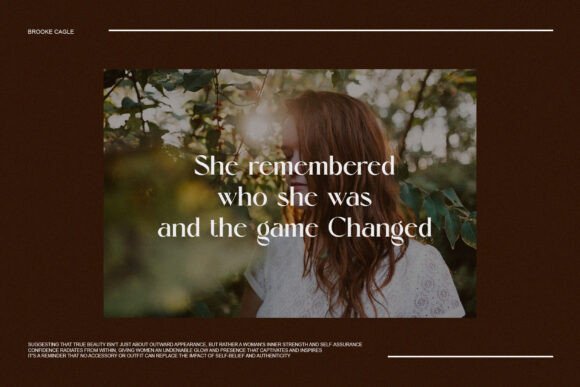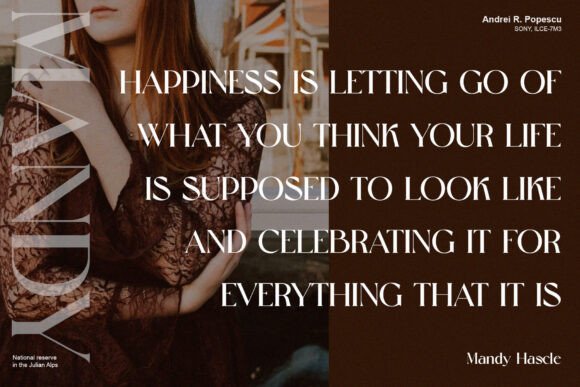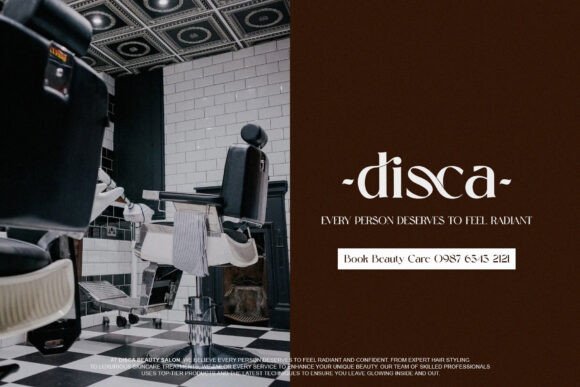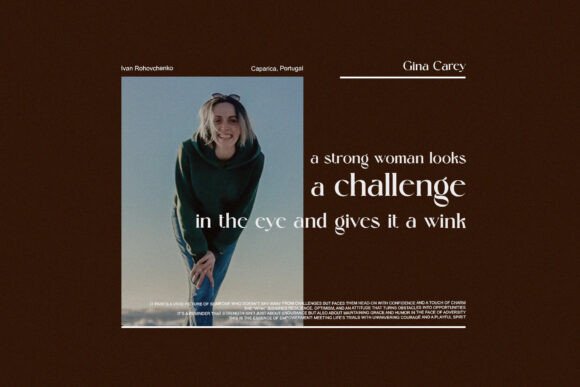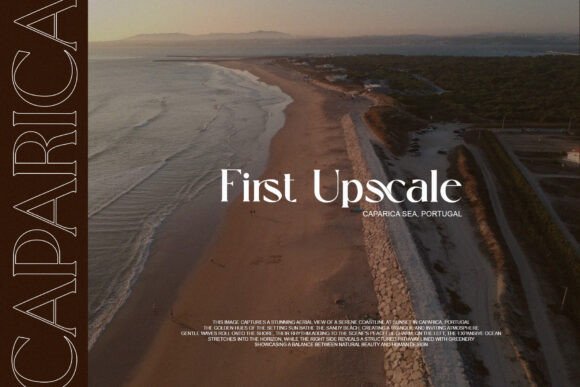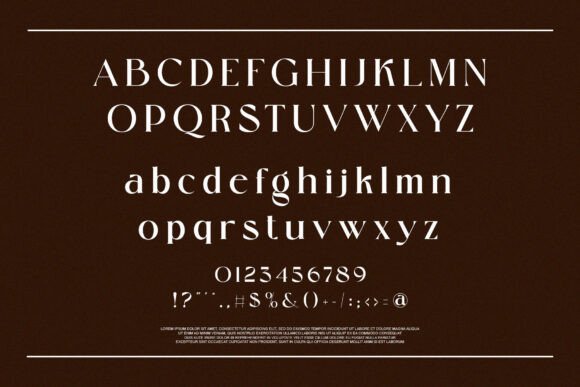
Introduction to Qilsand Font
Have you ever found yourself stuck in a creative rut, searching for the perfect font to elevate your design project? You know, that moment when you need something to make your work stand out, but every font you try just doesn’t quite fit the bill. That’s where the Qilsand Font comes in – a game-changing design resource that’s about to revolutionize your creative process.
With its elegant ligature serif modern design, Qilsand Font is the perfect addition to any high-quality design. Its bold yet refined ligatures give it a sophisticated and feminine touch, making it perfect for upscale designs, whether it’s a floral arrangement, a fashion brand, or a high-end logo. And the best part? This stunning font is available for free download, making it a transparent and accessible design resource for designers of all levels.
So, what makes Qilsand Font so valuable to designers? For starters, its soft and graceful presence elevates any project it touches, giving it a refined and natural charm. Whether you’re working on a creative project or just need a reliable design resource, Qilsand Font is sure to bring a touch of elegance and sophistication to your work.
Key Features of Qilsand Font
- High-quality, free download font ideal for creative projects, offering a unique and elegant design.
- Includes a range of characters, including uppercase and lowercase letters, numbers, and special symbols, making it a comprehensive design resource.
- Designed to be versatile and adaptable, making it suitable for a wide range of creative projects, from branding and marketing materials to digital art and graphics.
Honest Review: Qilsand Font
I recently had the chance to work with the Qilsand Font, a free download that’s quickly become a valuable design resource for my creative projects. Overall, I’m impressed with the quality and versatility of this font.
What works well: ✨ The Qilsand Font is incredibly easy to use, with a clean and modern design that’s perfect for a variety of applications. I love the fact that it comes with a transparent background, which makes it super easy to layer and manipulate in my designs. The font also looks great in both digital and print formats, which is a big plus for me.
Overall, I’m really happy with the Qilsand Font and would definitely recommend it to fellow designers looking for a high-quality, free design resource. It’s a great addition to any creative project and has quickly become a staple in my design toolkit.
- Perfect for digital and print designs
- Easy to use and manipulate
Common Use Cases for Qilsand Font